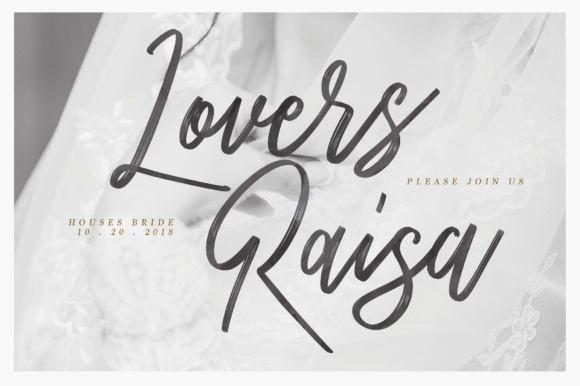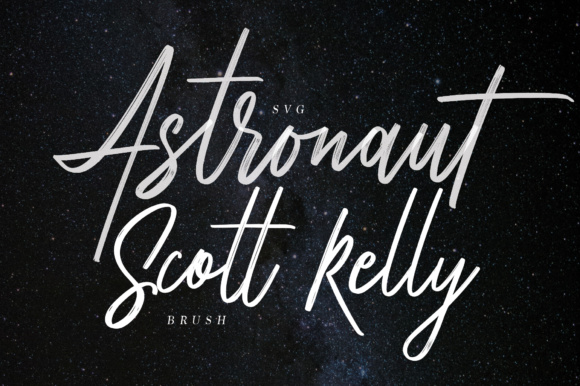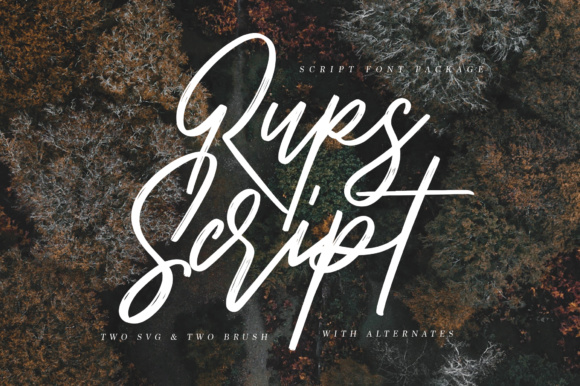
Rups Script Font
About Rups Script Font
Give your designs an authentic brush handcrafted feel with Rups Script. It has an elegant style which is perfect for signatures, stationery, logos, typography quotes, magazine or book covers, website headers, and much more!